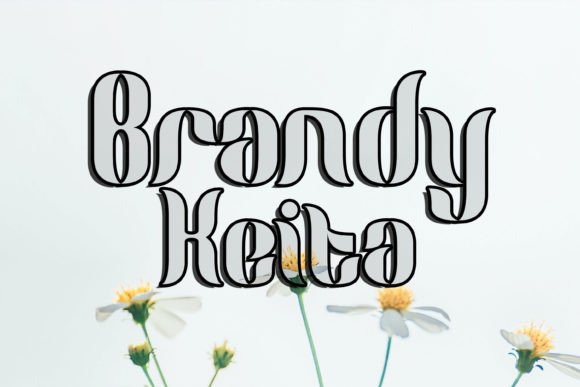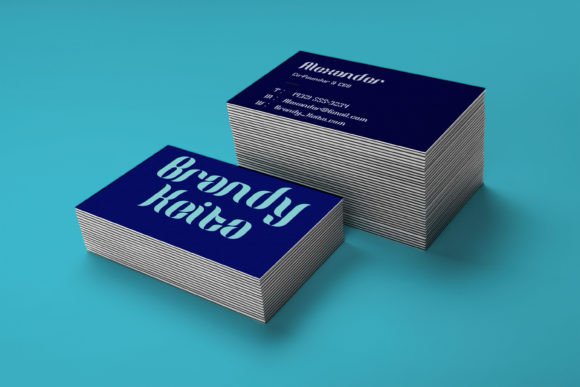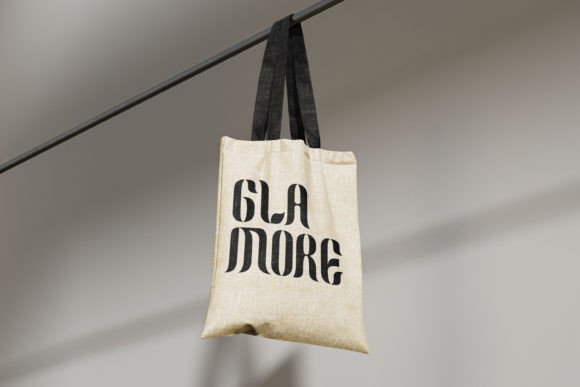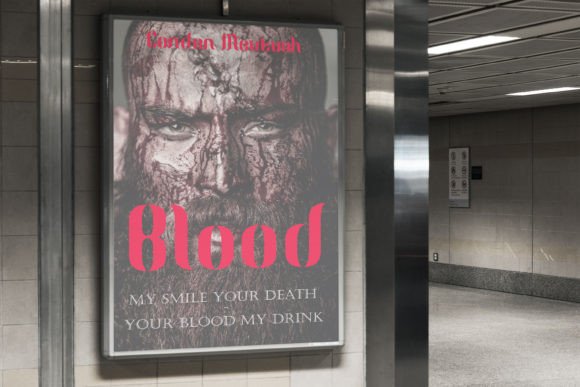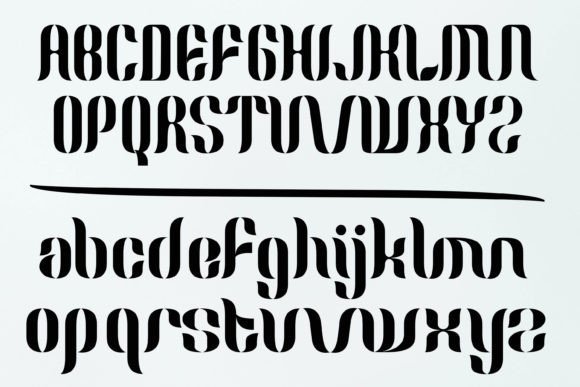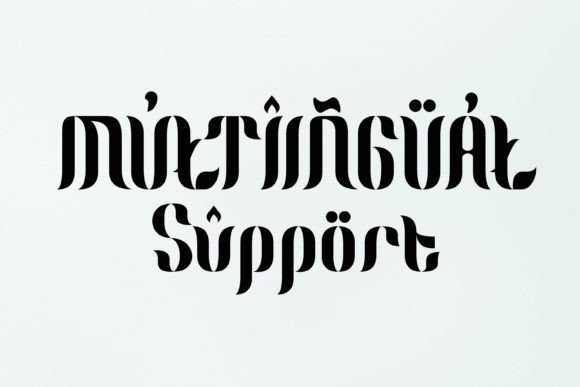
Discover the Elegance of Brandy Keita Font
Have you ever found yourself staring at a beautifully designed logo or magazine title, wondering what makes it so captivating? It’s often the subtle details that elevate a design from good to great, and for many creatives, the right font can be the key to unlocking that magic. As designers, we’re constantly on the lookout for typography that adds a touch of luxury and sophistication to our projects.
Enter Brandy Keita Font, a stunning new serif font designed to bring a sense of refinement and style to your work. Whether you’re crafting a brand identity, designing a product label, or creating a striking editorial piece, Brandy Keita Font is the perfect choice to add a touch of elegance and sophistication. Its versatility makes it ideal for a wide range of applications, from branding and packaging to magazine titles and advertisements.
Brandy Keita Font Key Features
- Unique Characteristics: Brandy Keita Font features a unique blend of modern and traditional design elements, making it ideal for creative and artistic projects.
- Language Support: The font supports a wide range of languages, including Latin, Cyrillic, and Greek alphabets.
- Font Weight: Brandy Keita Font is available in three font weights: Light, Regular, and Bold, allowing for a high degree of flexibility in design applications.
Brandy Keita Font Review
At first glance, the Brandy Keita Font has a unique charm that sets it apart from other fonts. The combination of elegant and modern features ✨ makes it a great choice for designers looking to create a distinctive visual identity. The font’s high x-height and refined details add a touch of sophistication, making it perfect for luxury brands or high-end publications.
- Unique blend of elegance and modernity ✨
- High x-height for excellent readability
- Refined details for added sophistication
- Perfect for luxury brands or high-end publications
However, the Brandy Keita Font also has some limitations ⚠️. The font’s irregularities and quirks may not be suitable for all types of projects, and its lack of uniformity can make it challenging to work with. Additionally, the font’s limited character set may require additional font management for larger projects.
- Irregularities and quirks may not be suitable for all projects ⚠️
- Lack of uniformity can make it challenging to work with
- Limited character set may require additional font management
In conclusion, the Brandy Keita Font is a great choice for designers who want to add a touch of uniqueness to their projects. While it may have some limitations, its elegant and modern features make it a valuable addition to any designer’s toolkit.
The Brandy Keita Font is ideal for:
- Formal event announcements
- High-end branding and marketing materials